You probably already know about the impact that typography can have as it gives a visual context to your design. The same text in a plain Sans Serif can deliver a completely different message when it’s set in a Script font for example. To choose your font style wisely and determine what’s the best fit for your brand or design you usually need to scour the web and this could take a while. And what kind of popular font styles are out there?
So to help you out with this we’ve listed 10 of the biggest font trends we’ve noticed that have been gaining popularity over the last years and throughout the first half of 2022. Seeing the actual name of that font style together with some visual reference will help you quickly navigate through the options and see what works best for your next project. So without further ado, let’s talk fonts!
High Contrast Serifs
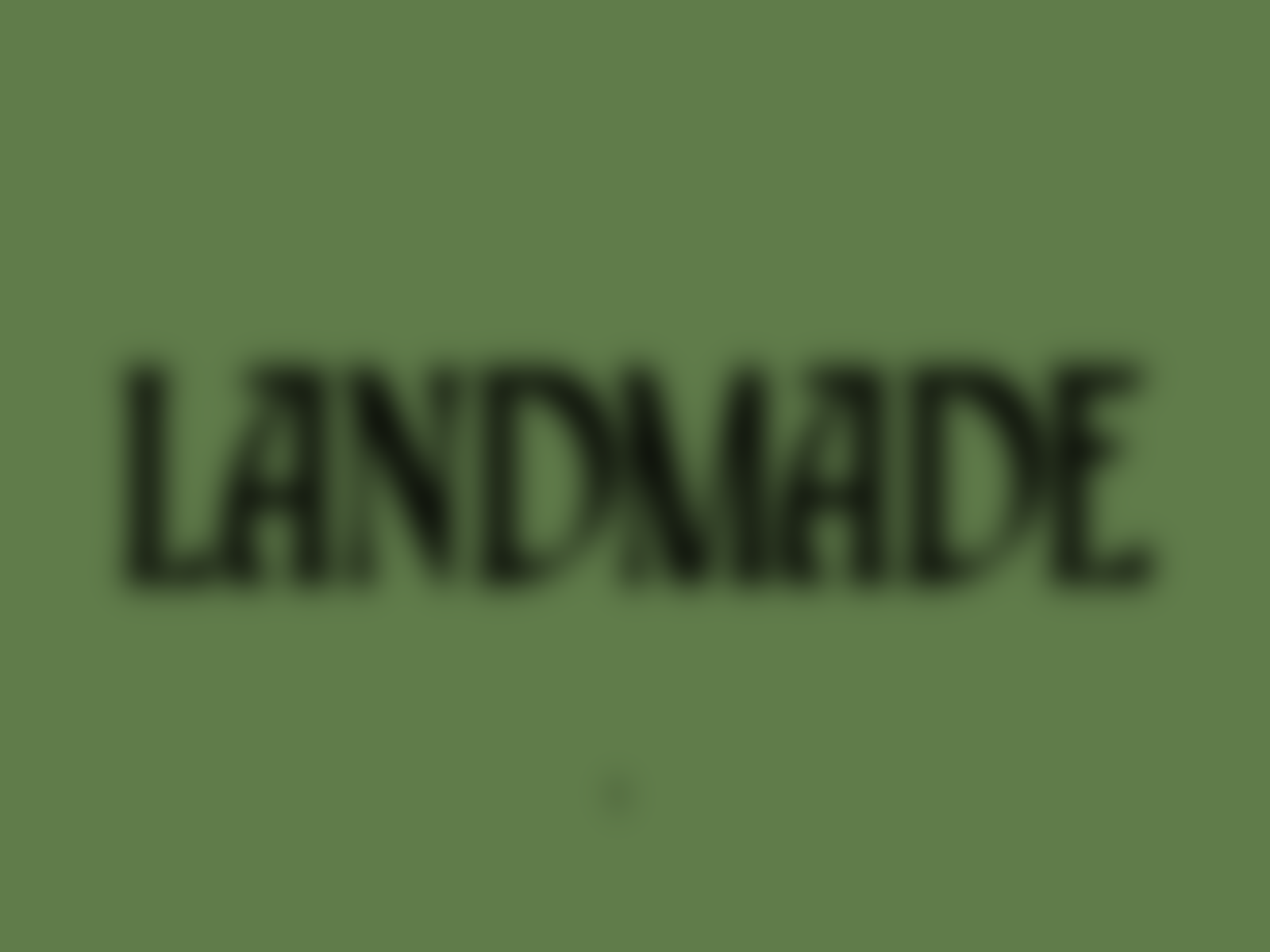
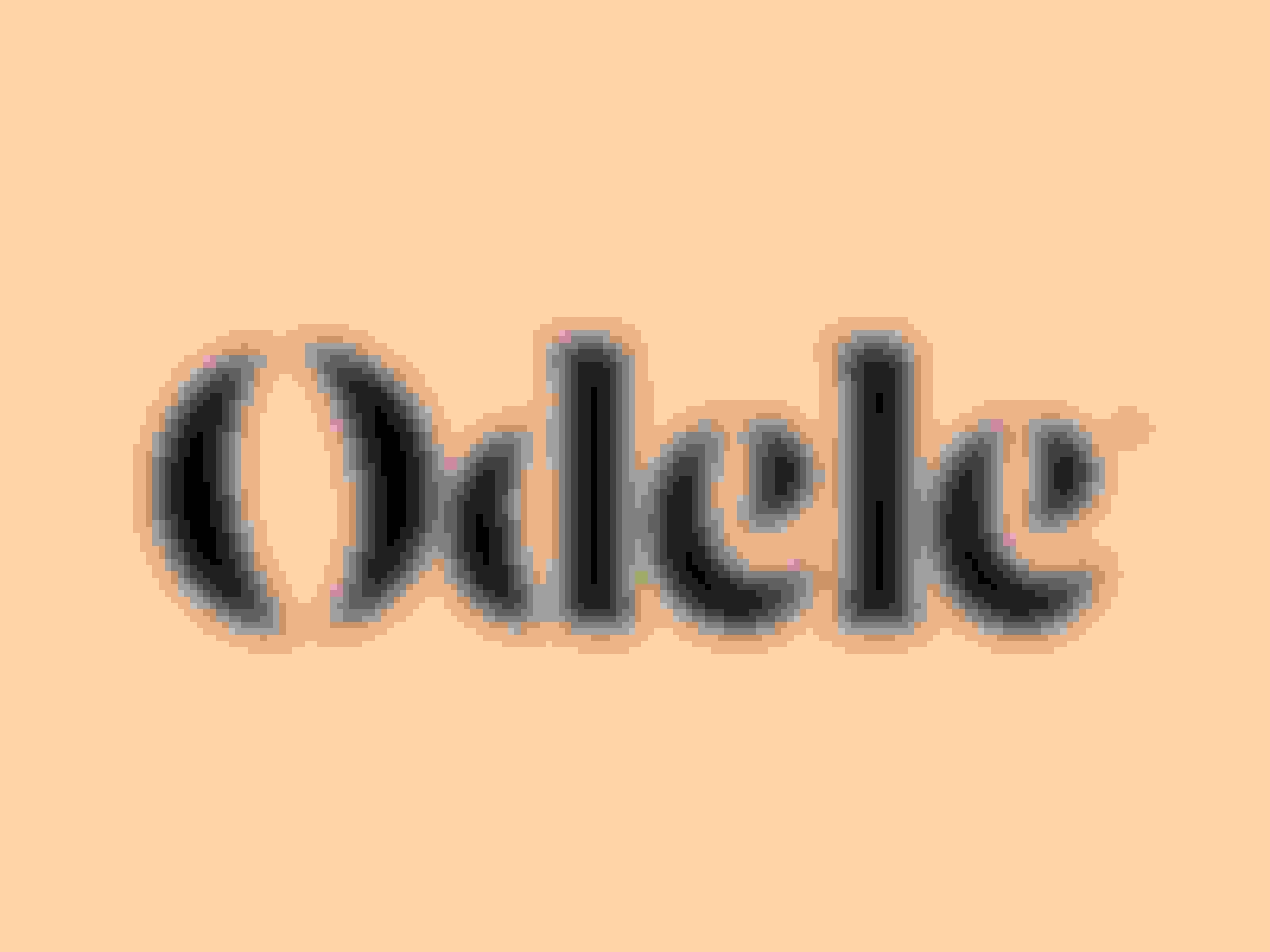
One typography trend we’ve seen gaining lots of popularity the last couple of years are ‘High Contrast Serifs’. After a long period of minimalism and a wildfire of Sans-Serifs, many designers started giving their designs some extra character by using high contrast serifs.
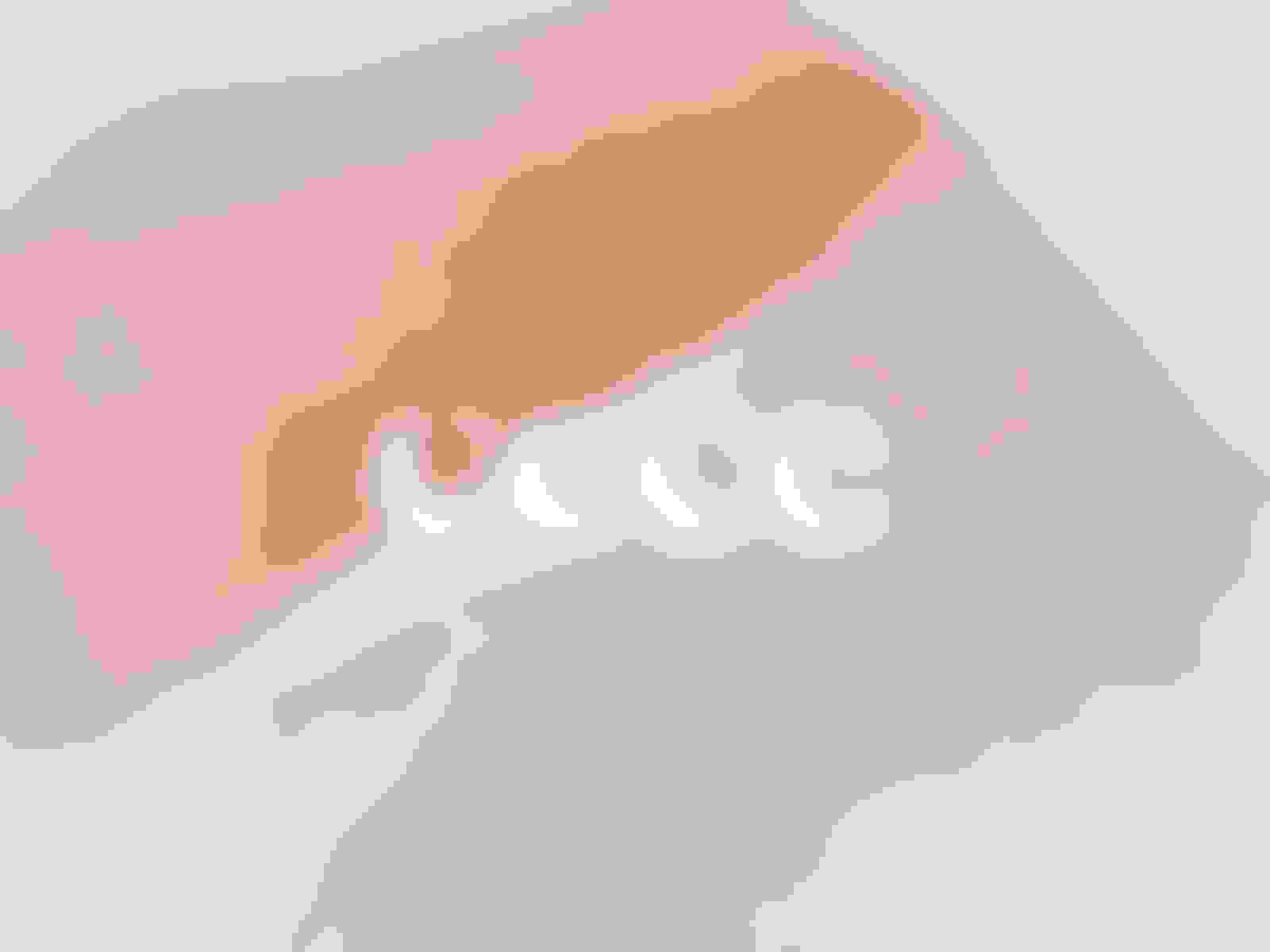
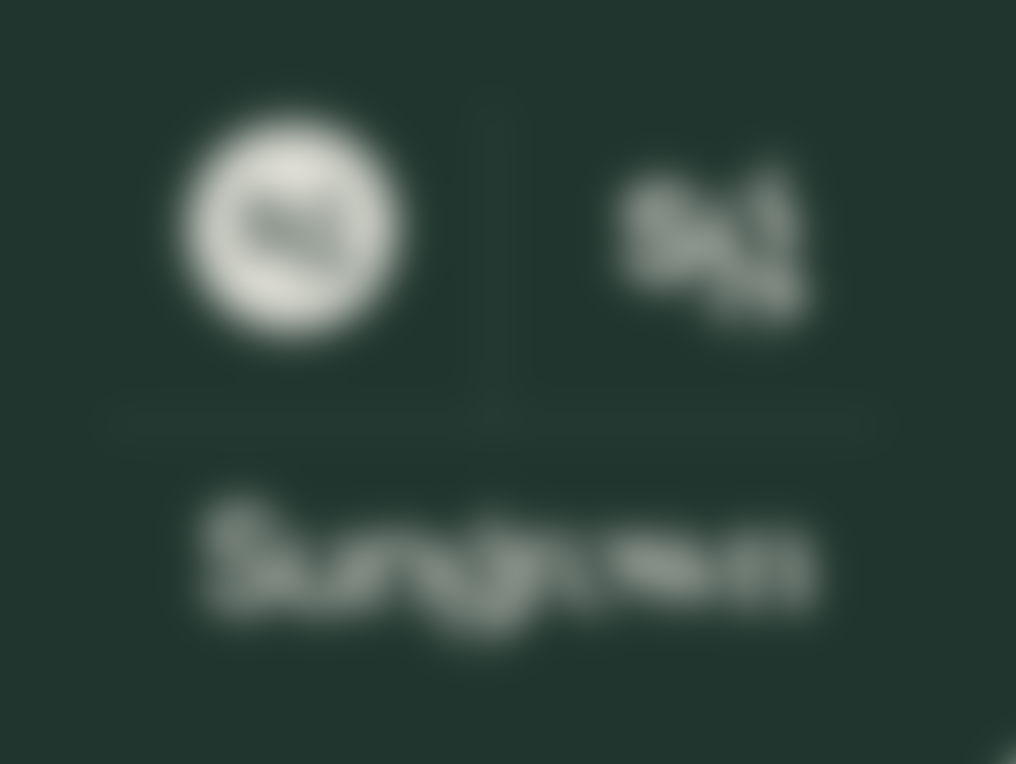
Its large contrast in thickness between these letterforms give it a certain feel of quality and high-end product experience that would be a lot harder to accomplish with a modern sans serif. And let’s be honest, they just look good right? The larger the contrast, the more interesting it looks and type designers around the world are definitely pushing the boundaries of what’s possible to accomplish completely new looks.
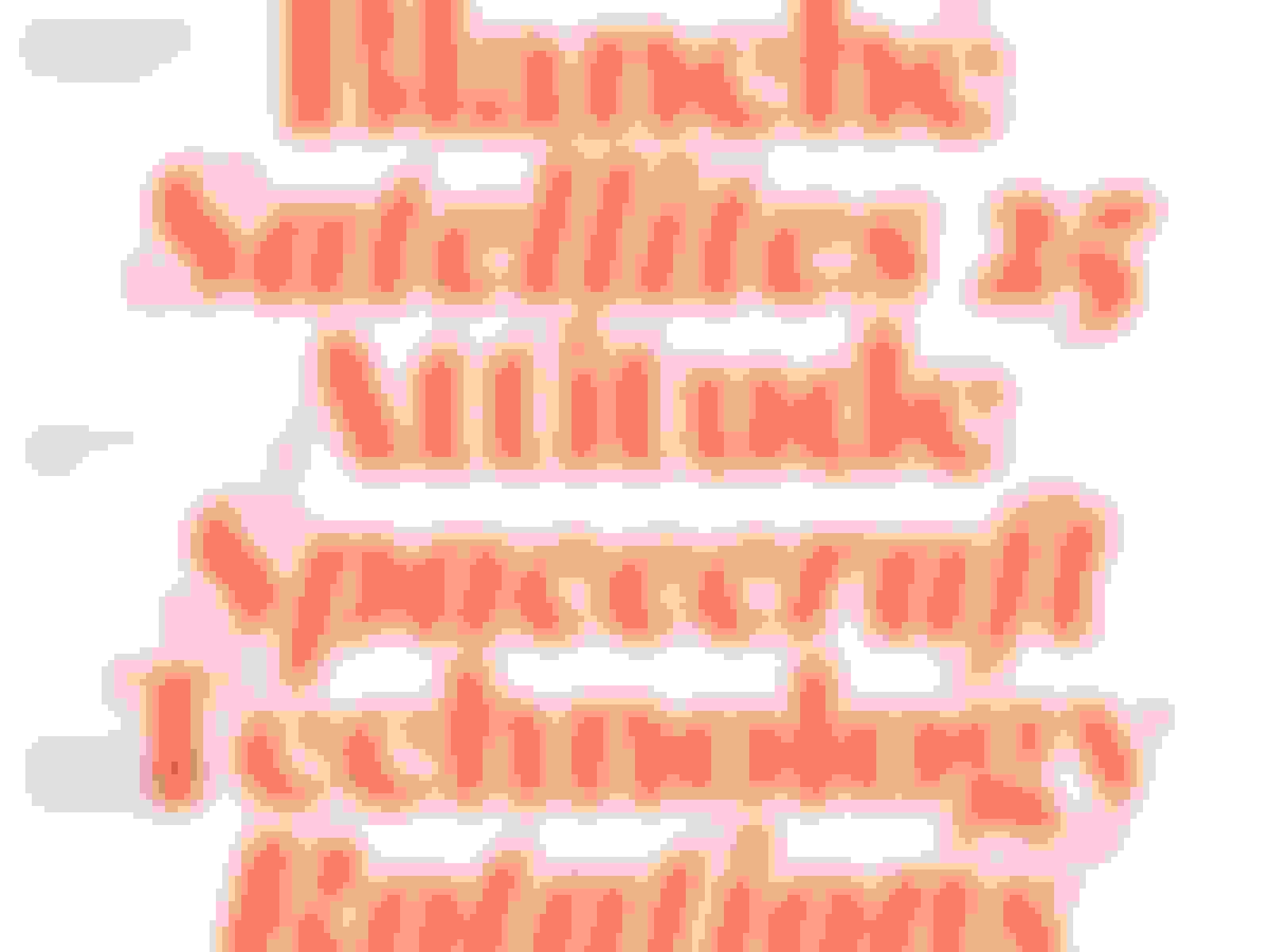
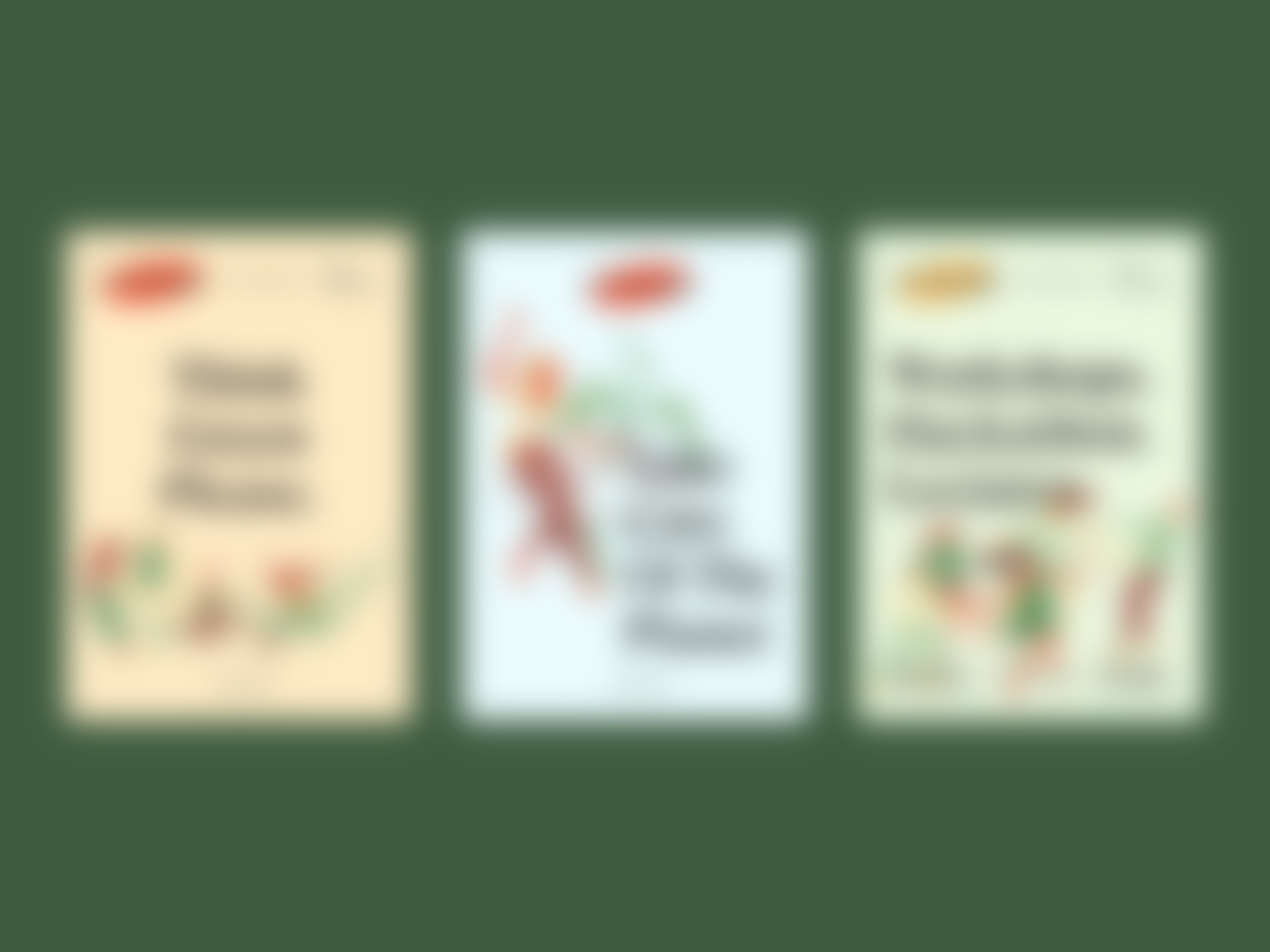
Some High Contrast fonts:
- Larken by Ellenluff
- Albra by BumbumType
- Juana by Latinotype
- TT Ramillas by TypeType
- Blacker Pro by Zetafonts
Neue Nouveau
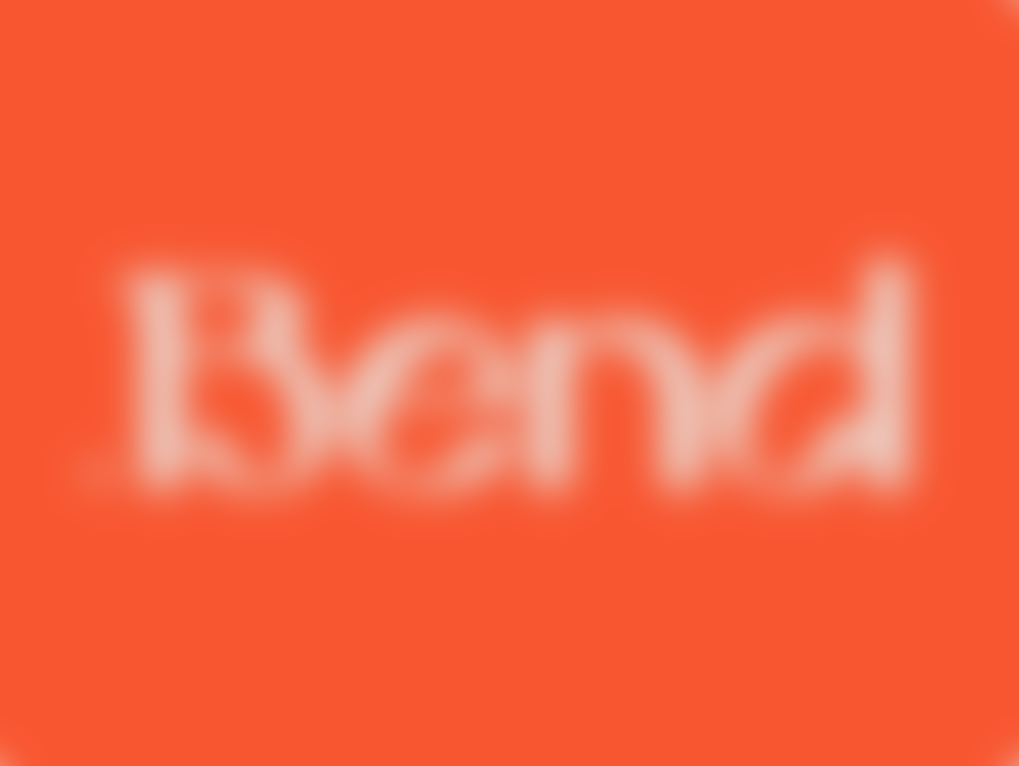
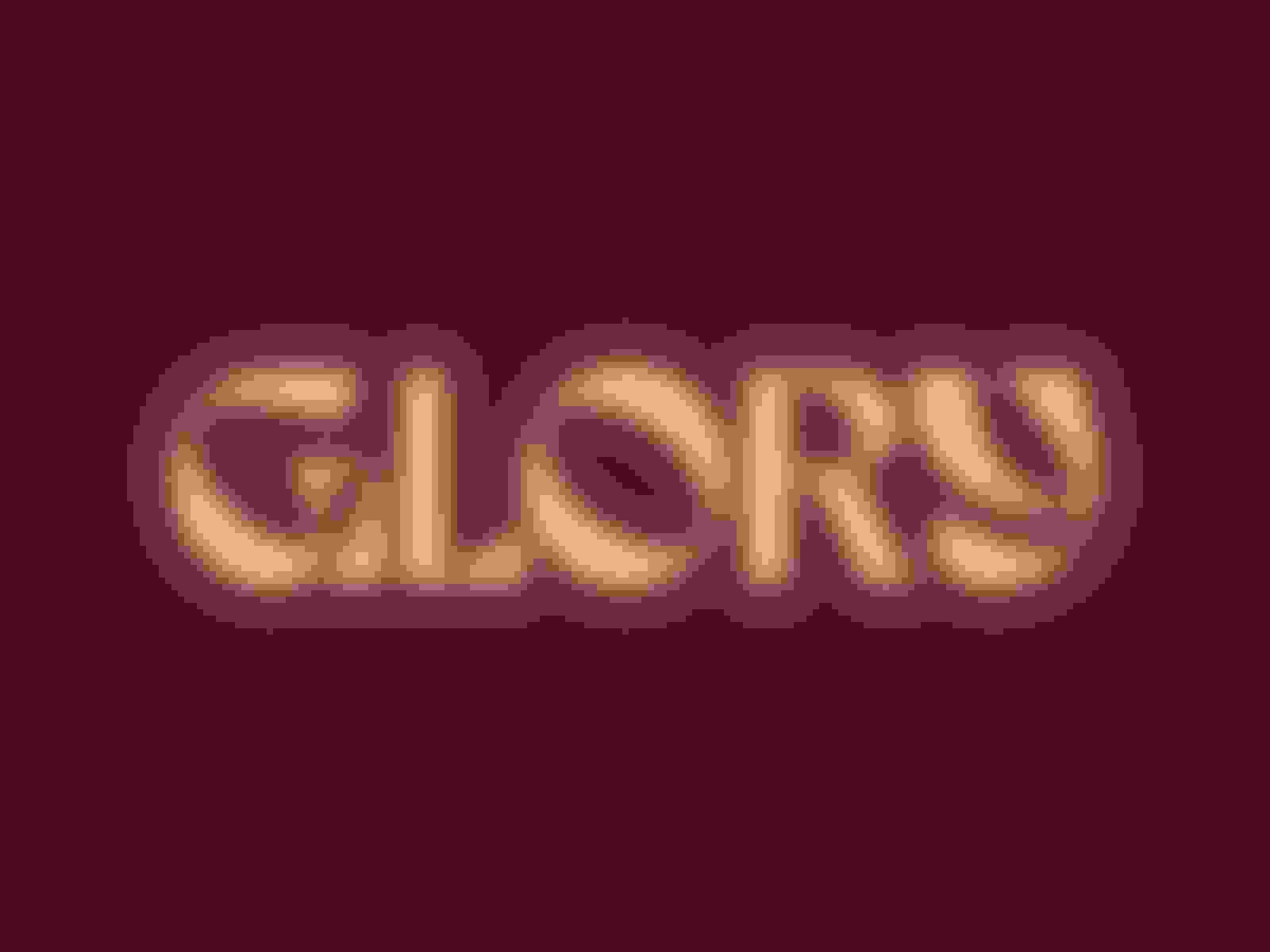
This natural looking style has a quirky vibe to it and gives your design a modern nostalgic feel. Often used in combination with natural earth tones and floral ornaments. it just transcends you to the Renaissance period of time.
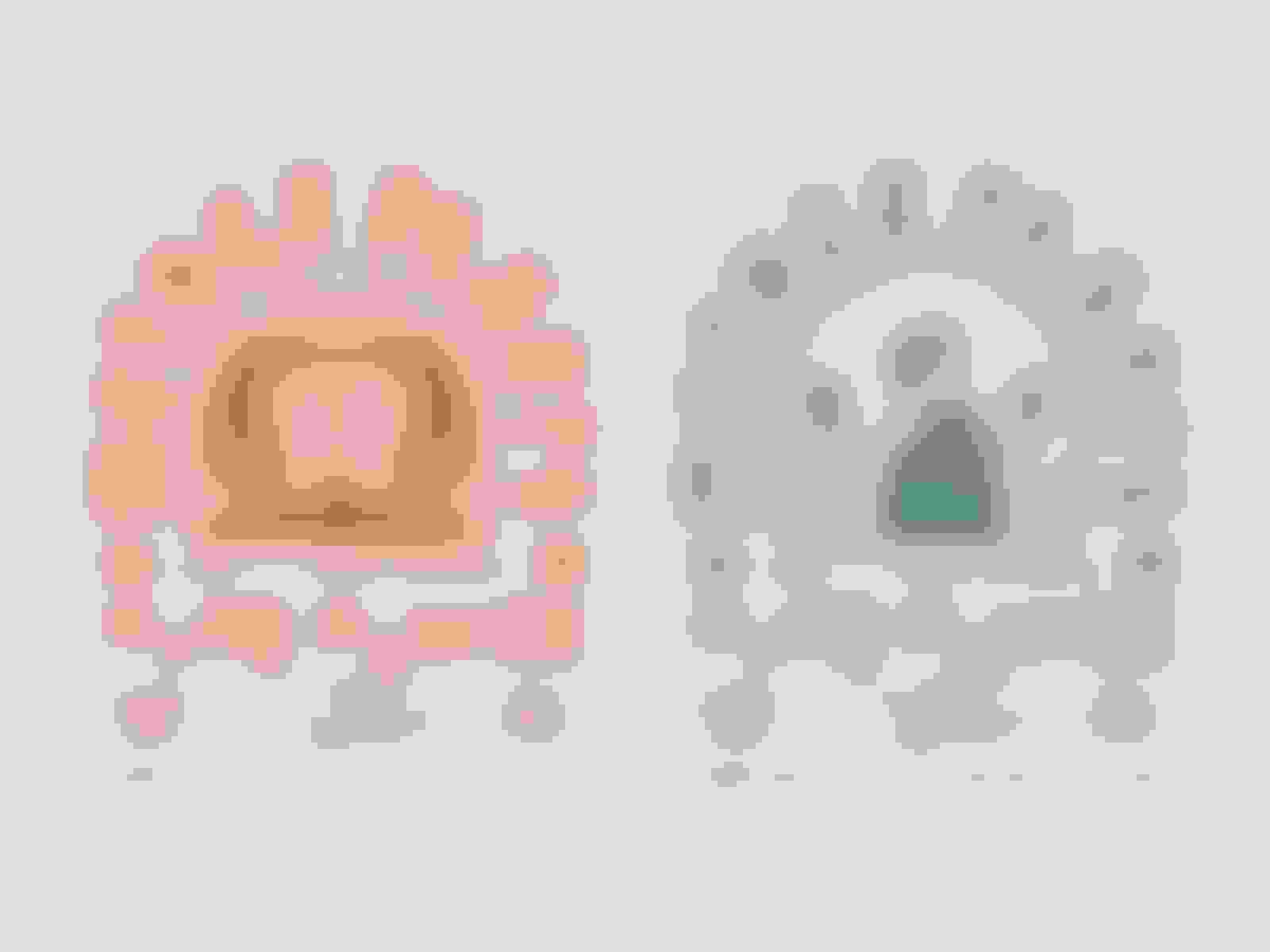
The combination between natural curves and sharp edges and subtle serifs make it interesting to look at and at this point still gives a unique feel to it. We expect that this style will become even more popular and widely used throughout the year so we’ll have to watch how this font style will stand the test of time.
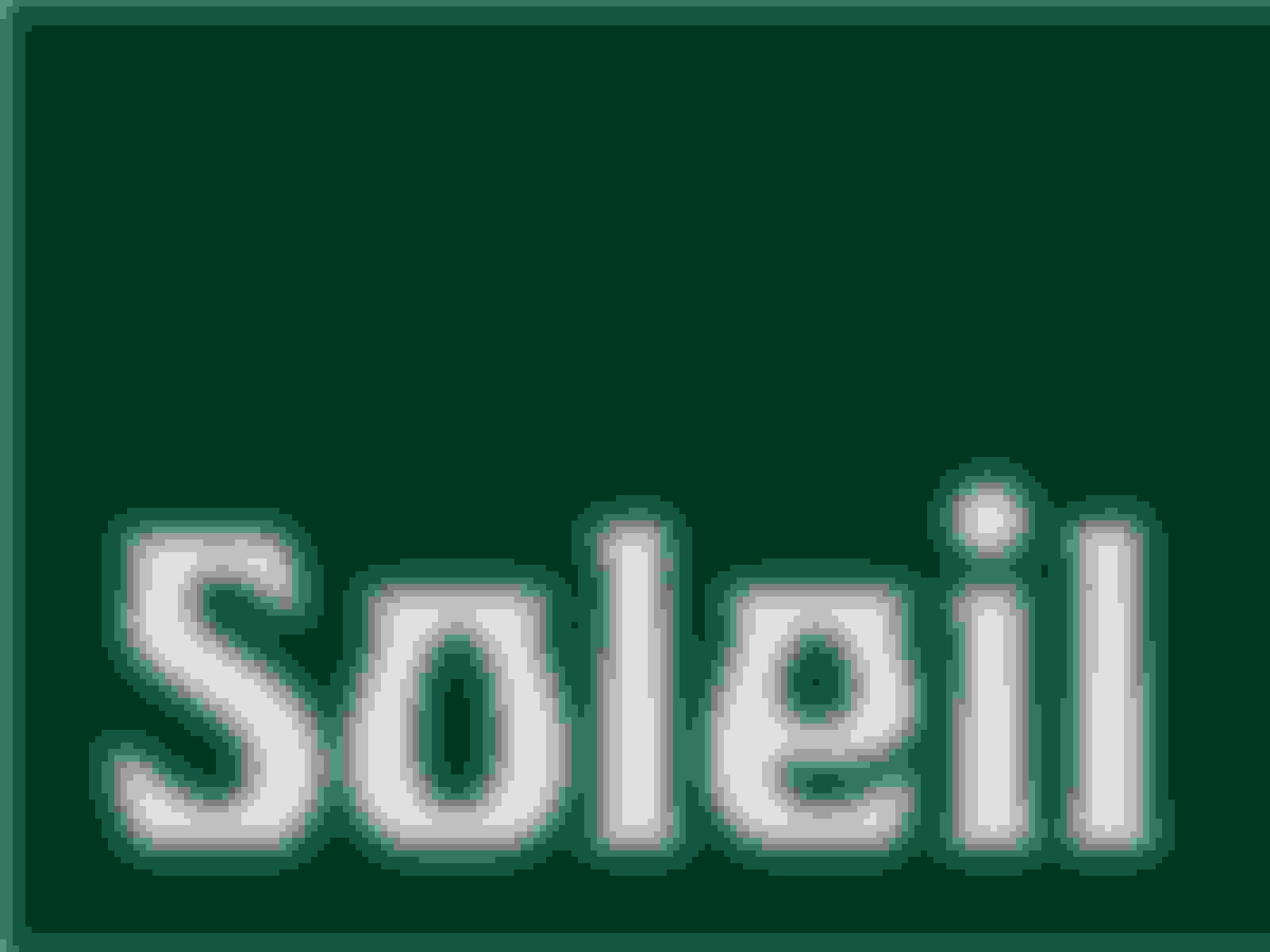
Some Neue Nouveau fonts:
- Beckan by Valentino Vergan
- Peskia by Valentino Vergan
- Crake by Narrow Type
- Compote by Factory738
- Raginy by Artefak Project
Script / Handwriting Fonts
An ever growing font style that has so many possibilities to use it for. Whether you want to give it a prominent role in your design by applying it to your product name, campaign title or brandmark, you could also use it for smaller placements that give your design an analogue look to it.
Within this category there’s a lot of variety in terms of style and vibe that it brings to the table. With so many options out there, we made a selection from different types of script and handwriting fonts for you to have a look at.
Some Script/Handwriting fonts:
- Summer Loving by Nicky Laatz
- Better Times by Set Sail Studios
- Quickpen by Trial by Cupcakes
- Lemon Yellow Sun by Hanoded
- Arsilon by Dhan Studio
Flux
This term is being introduced by the highly respected type foundry Monotype. A style that’s been built to last and to give the right tools to work on digital work as well. Now the world is changing rapidly in terms of technology and all the new possibilities that come with that. We needed typography that could adapt easily and give the proper visualization of this time.
Variable fonts are a large component in this style as well as it’s possible now to change the font weight and width manually. No longer you have to choose between the premade font styles within a typeface but rather make full use of the space you have and fill up entire screens.
Extended letters, cropped forms and bending baselines, this type style gives the right vibe that’s needed to start this new phase.
Some Flux fonts:
- Roc Grotesk by Kostic
- Helvetica Now Variable by Monotype
- Neue Plak by Monotype
- Rifton by Letter Omega Typefoundry
- Tusker Grotesk by Lewis McGuffie Type
Modern Organic
Typography is getting more and more expressive to stand out from the rest or to create a certain vibe around your brand. And in case you want to accomplish that without using an overly done organic font or a handwritten style losing a certain logic/grid behind your typography, this style might be the one for you.
While the use of the grid keeps things organized, Modern Organic fonts, or ‘Organic-Mod’ pushes the boundaries of what is possible within that grid while avoiding becoming ‘too random’ and organic.